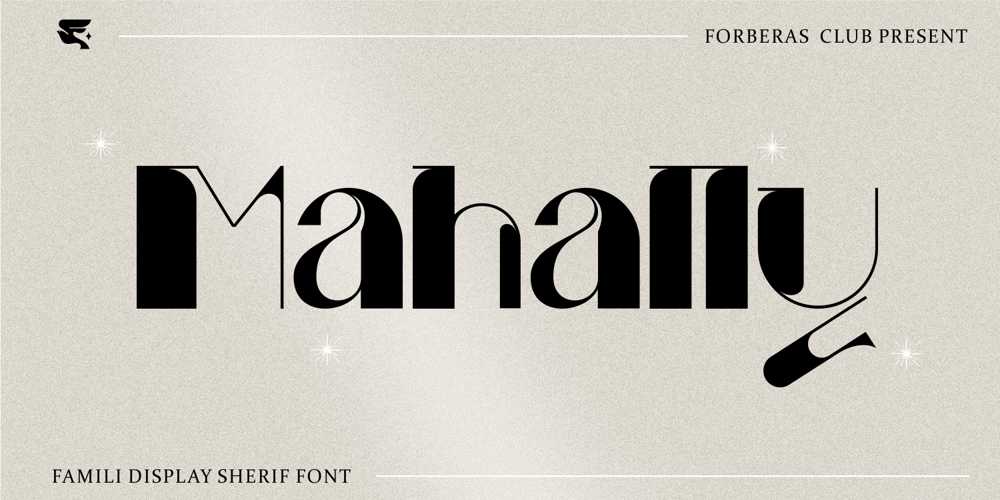
Mahally Font Family was designed by ANGGI HERMAWAN and published by Forberas Club. Mahally contains 2 styles and family package options. Mahally, Some vintage fonts with regular & italic version both with creative and sense of art. Ready for your crafting material as wedding decorative, invitation card, greeting card, T-shirt design, some merchandise, or to make your Branding Product.